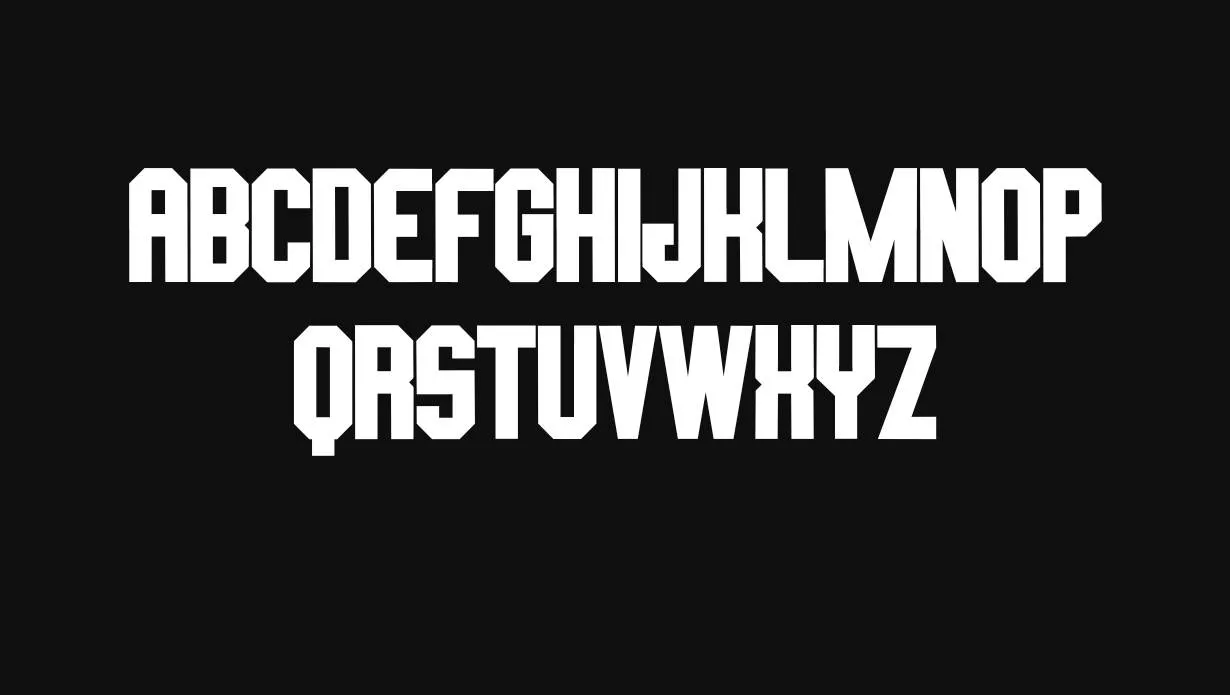
Top Gun Font is part of the Techno font family, inspired by the iconic movie of the same name.
It was created by an Italian designer Paolo Vannucci for Alphabets & Type Foundry in 2013. This typeface is well suited to macOS and iOS. It has TTF and OTF formats. You can combine this typeface with golden plains font and make more innovative projects.